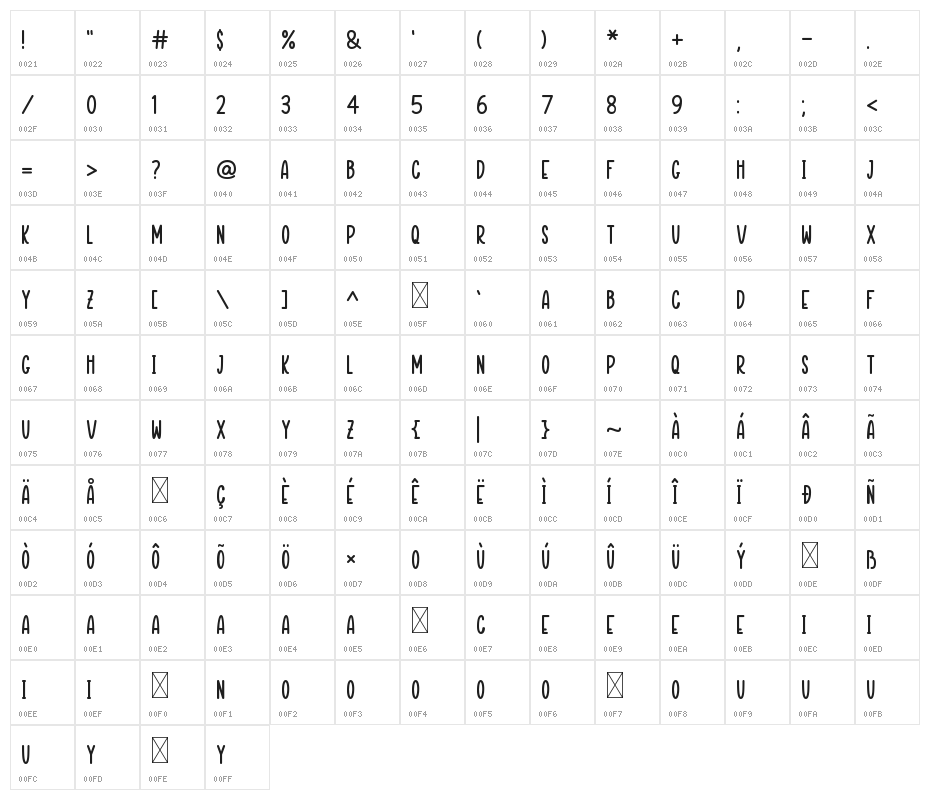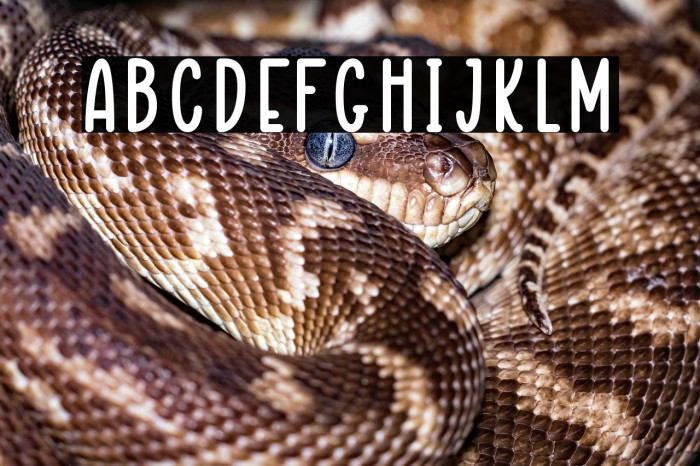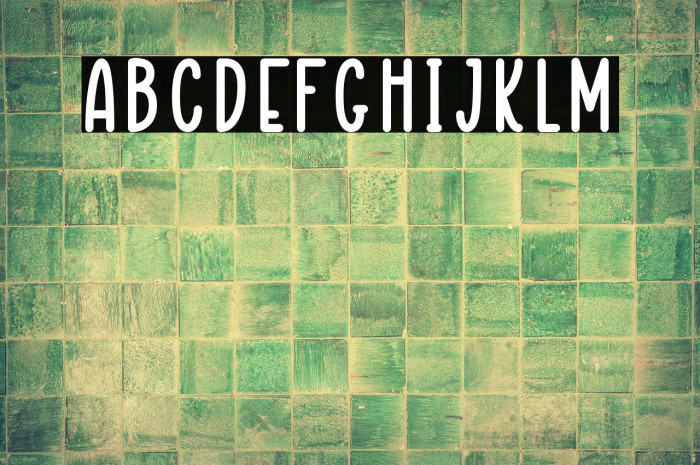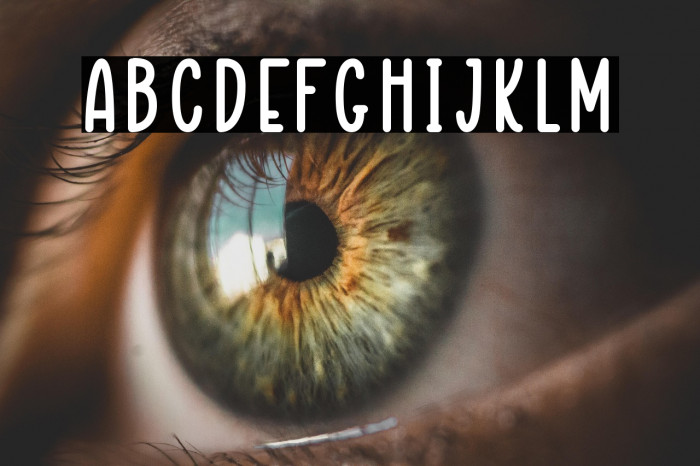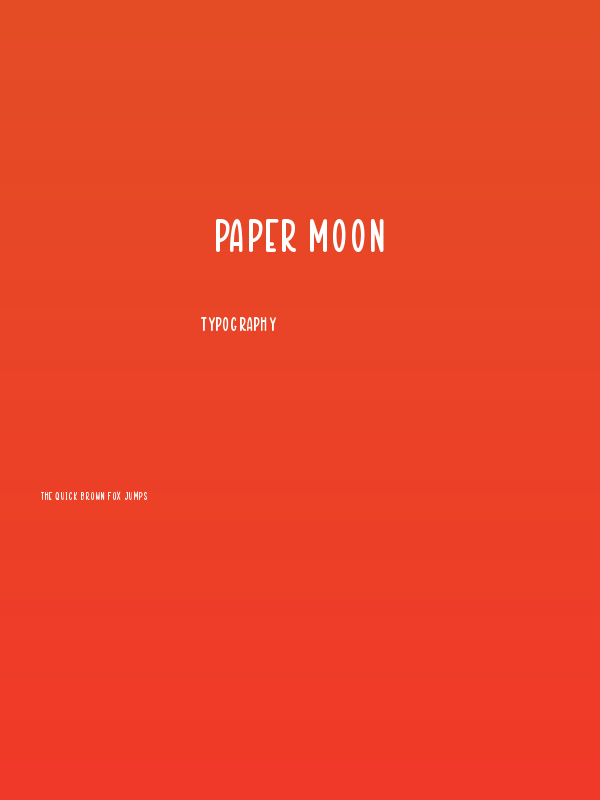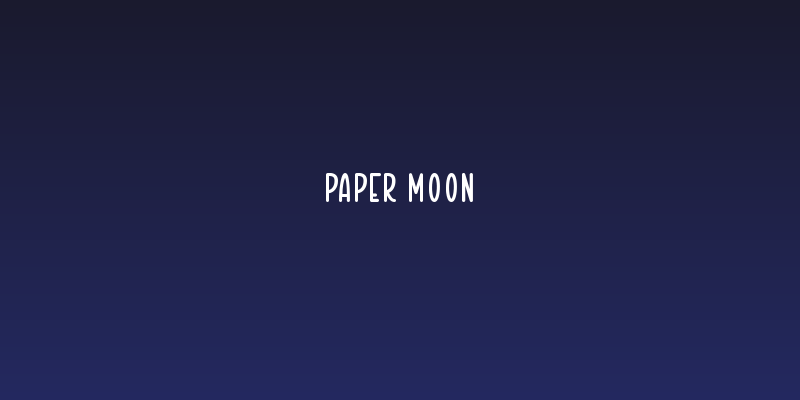
PAPER MOON Font
PAPER MOON Description
This font features a playful and rounded style, characterized by its smooth curves and friendly appearance. The letters are evenly spaced with a consistent stroke width, giving it a clean and approachable look. The uppercase and lowercase letters maintain a uniform height, enhancing readability. The numerals and special characters are designed to match the overall aesthetic, making it versatile for various applications. Its simplicity and charm make it suitable for projects that require a casual and inviting tone.
| Proposed Projects | Ideal for children's books, greeting cards, playful branding, and casual invitations. |